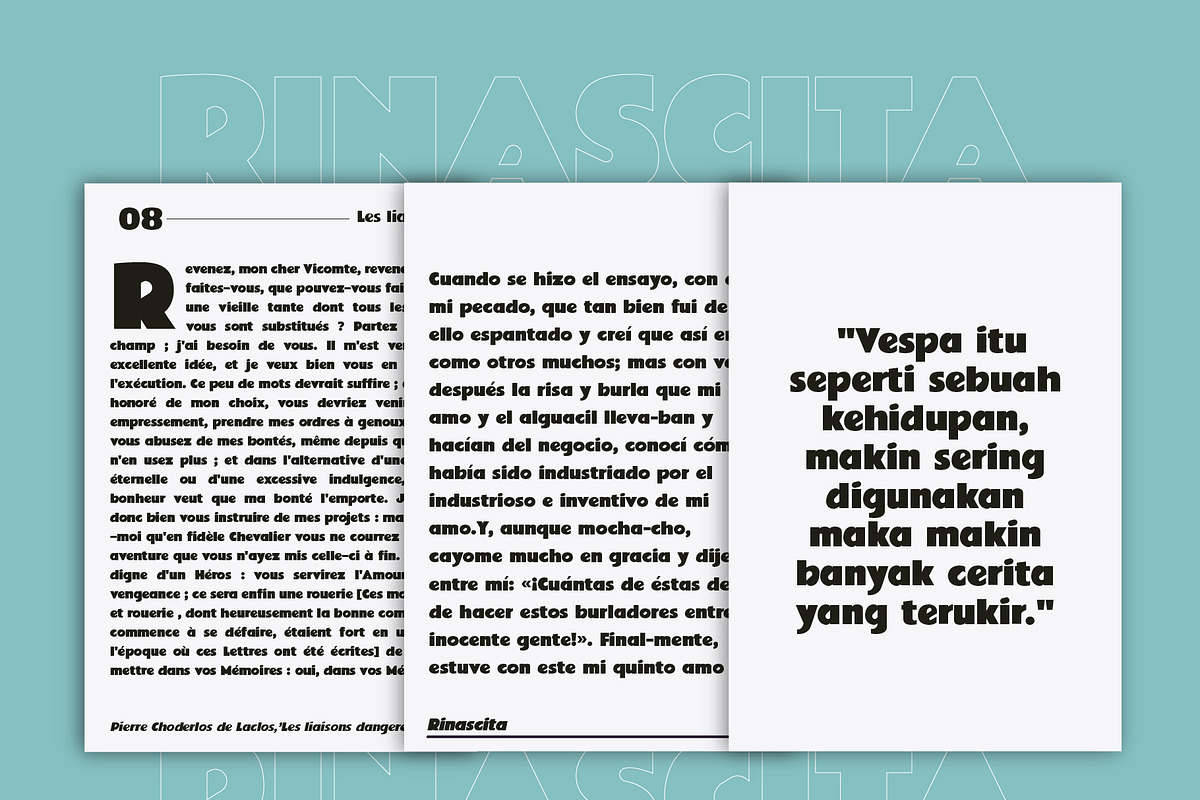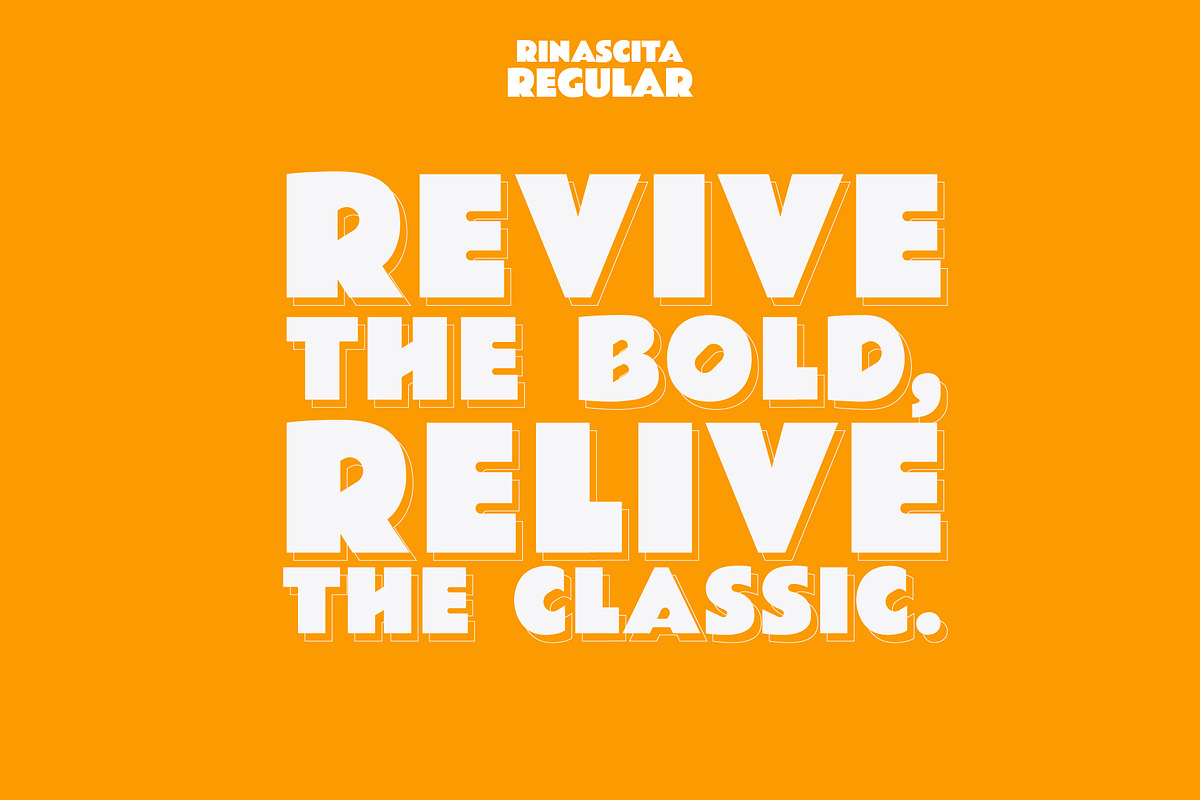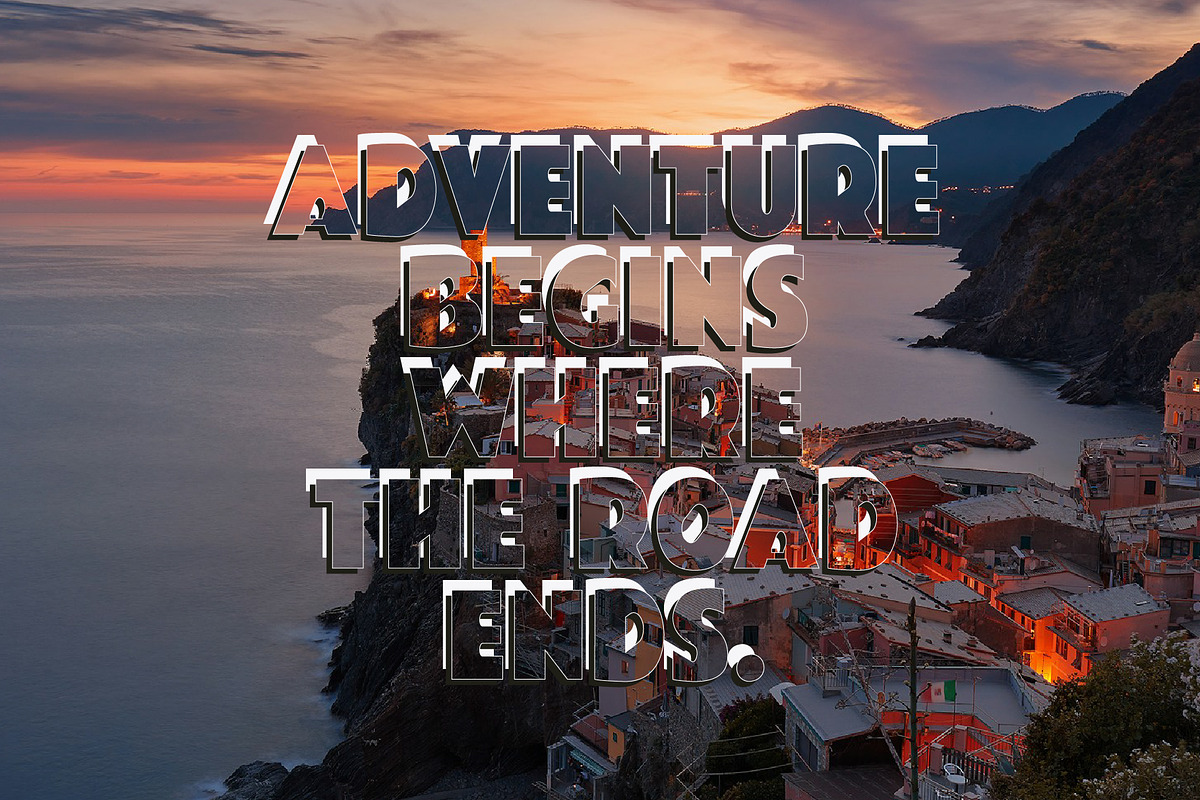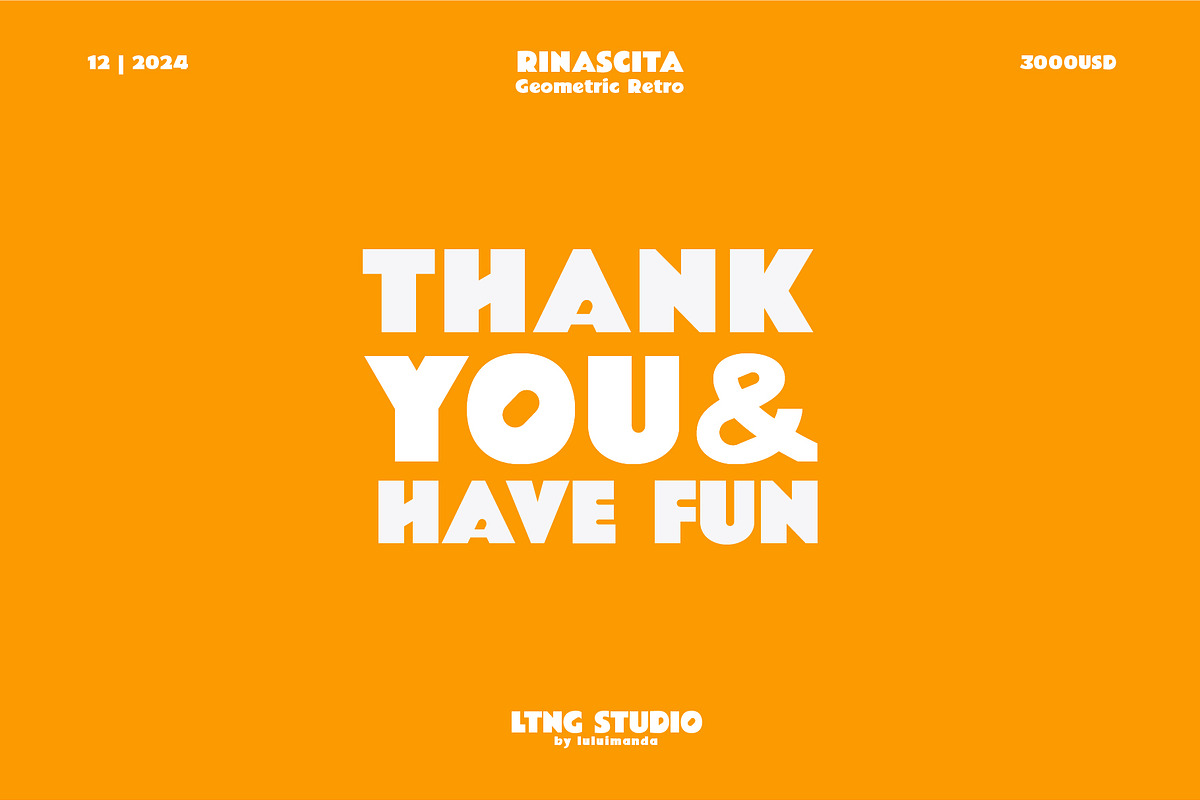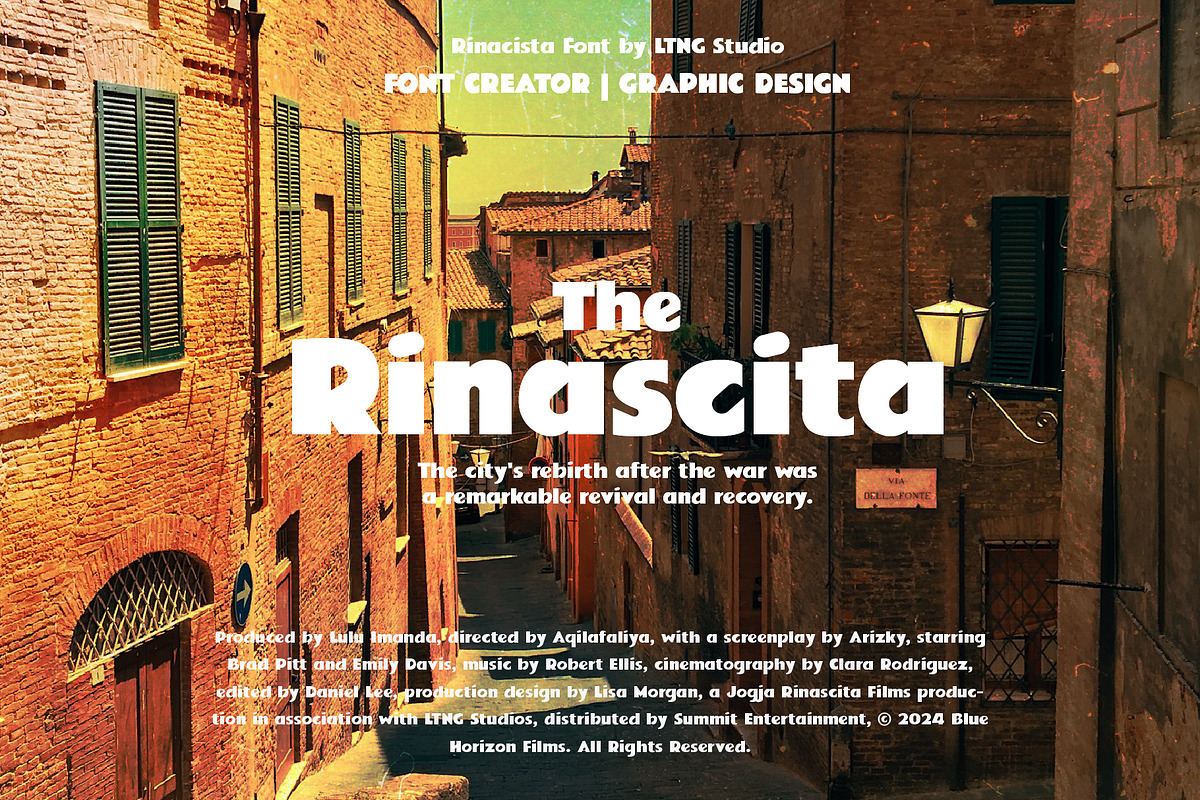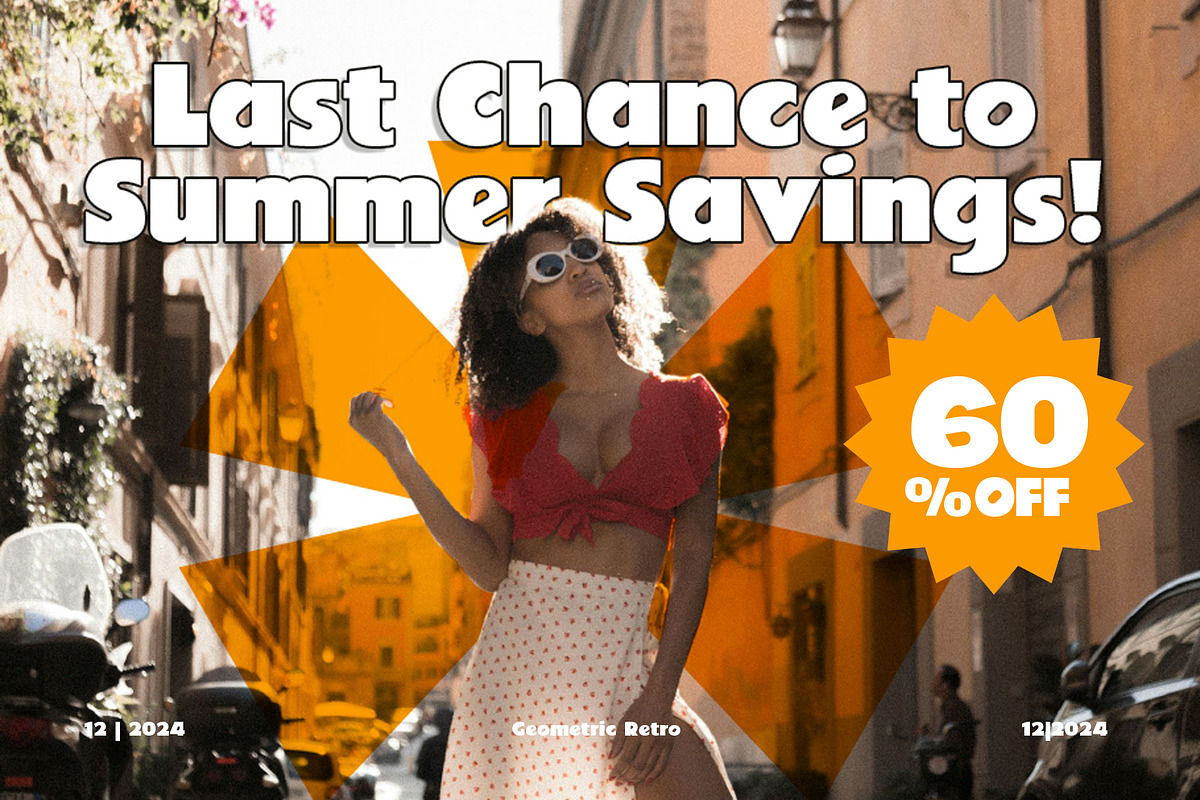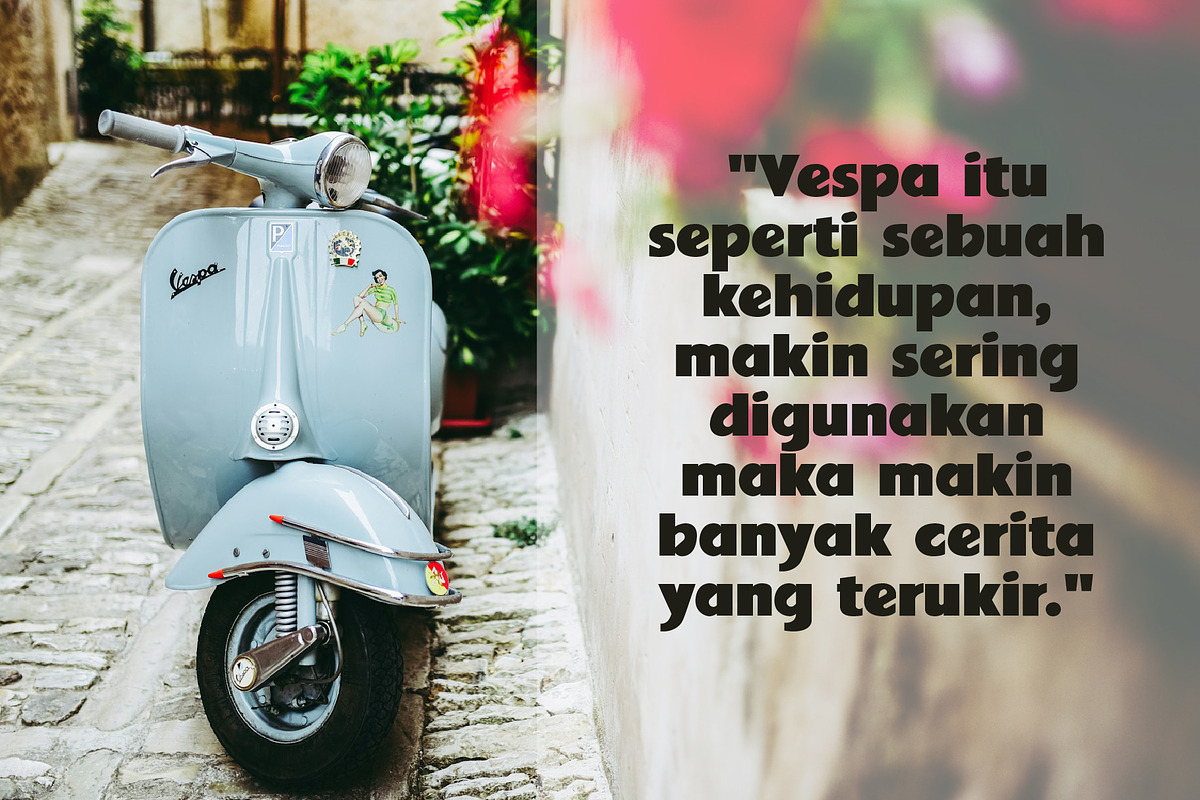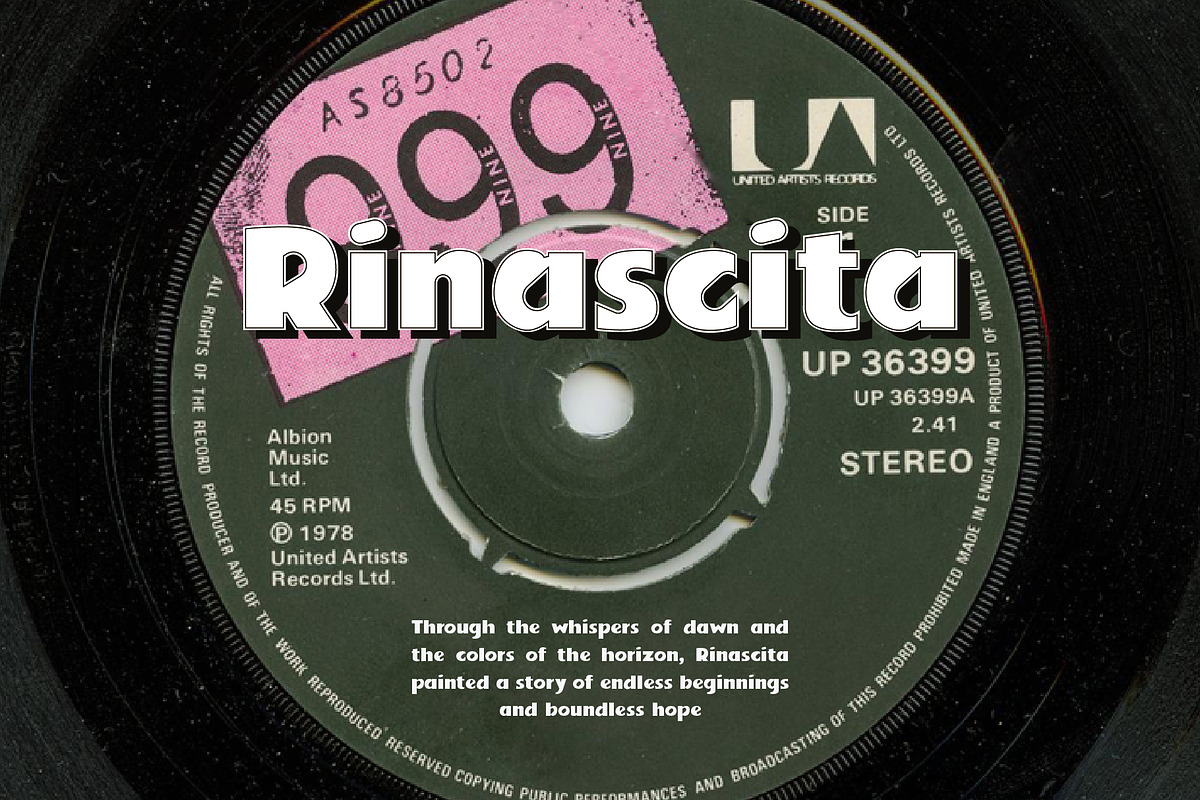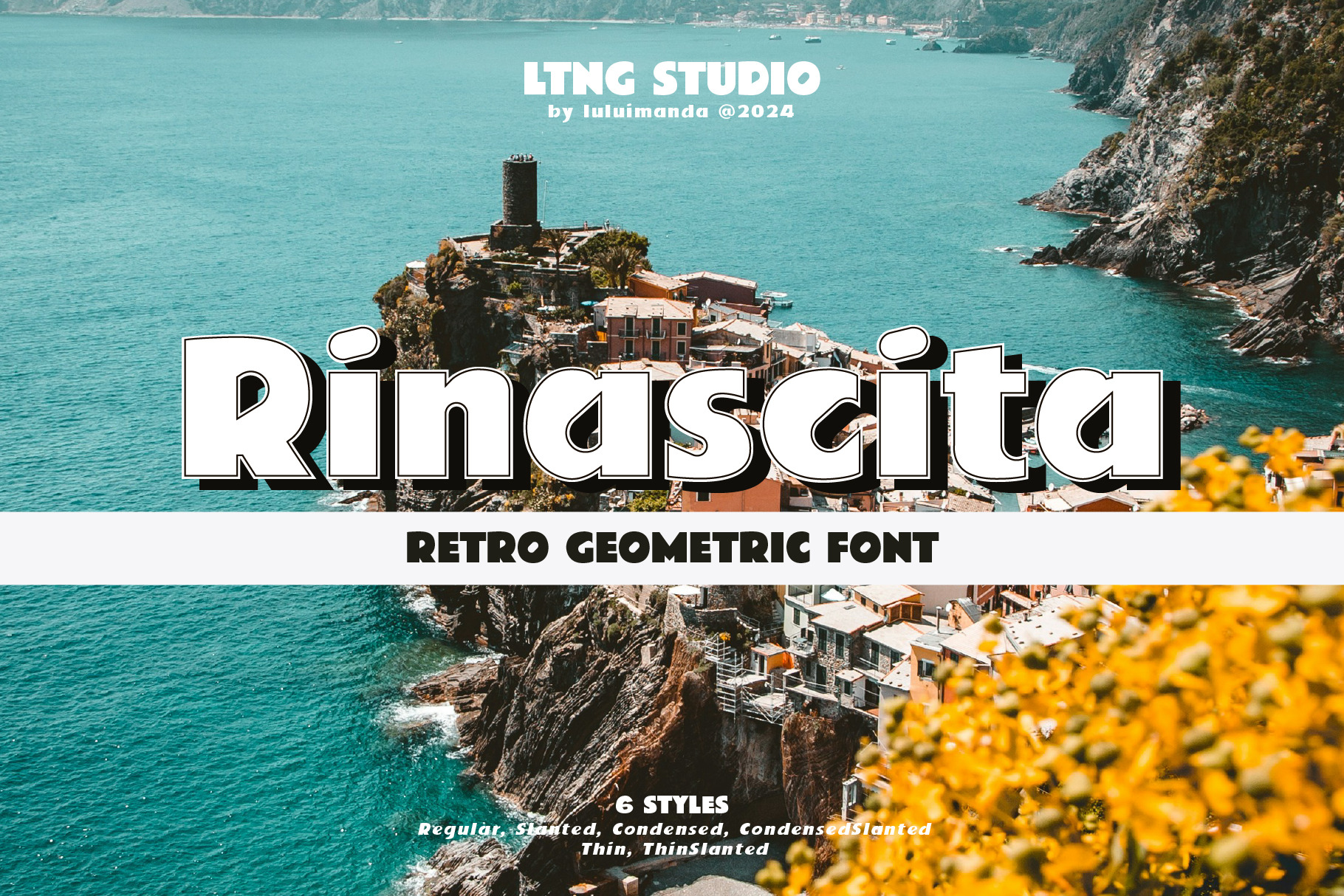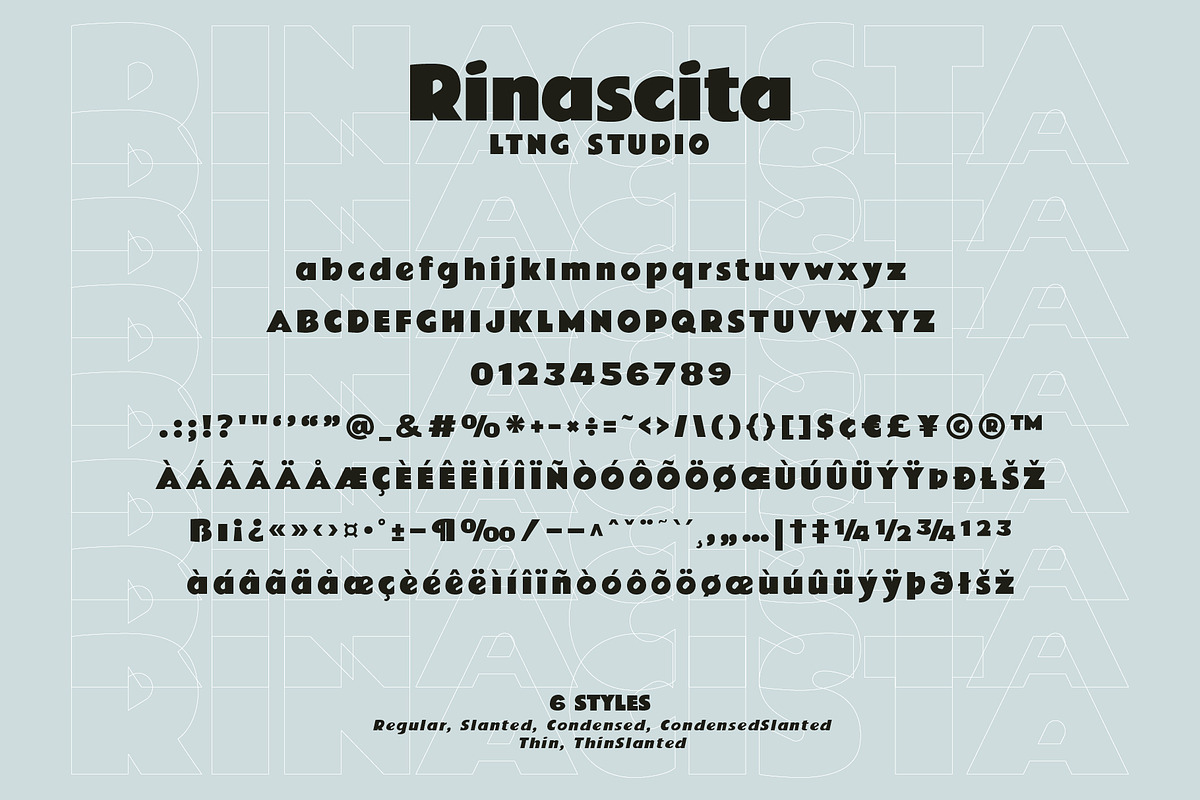
Rinascita Retro Geometric Font
Rinascita is a bold, retro-inspired typeface with a modern edge, characterized by its blocky, confident shapes and subtle geometric quirks. Its name derives from the Italian word for "renaissance," symbolizing a revival of vintage aesthetics with a contemporary flair. Rinascita is perfect for creating eye-catching headlines, logos, posters, and branding materials, offering a striking and playful yet professional appearance.